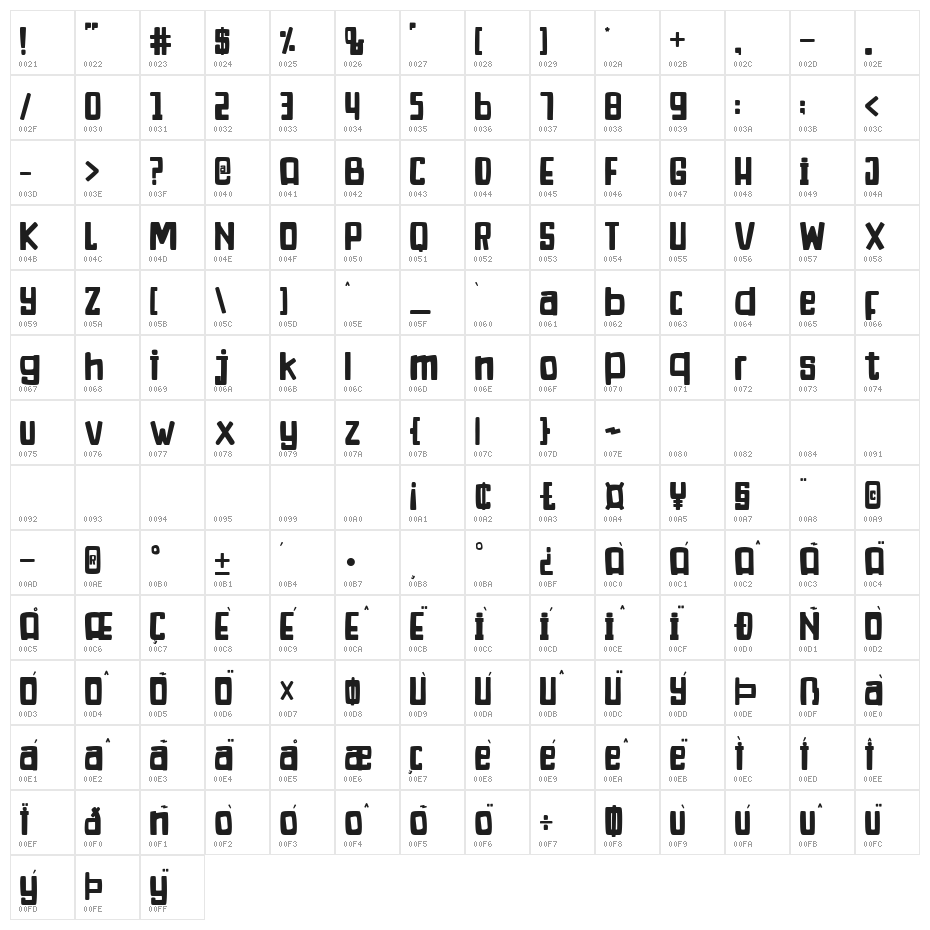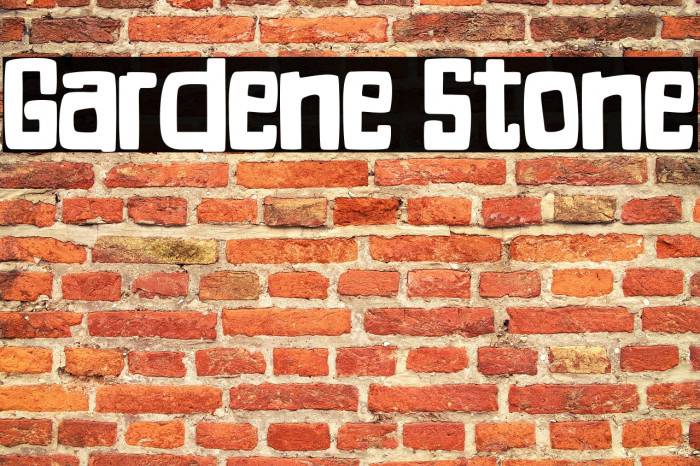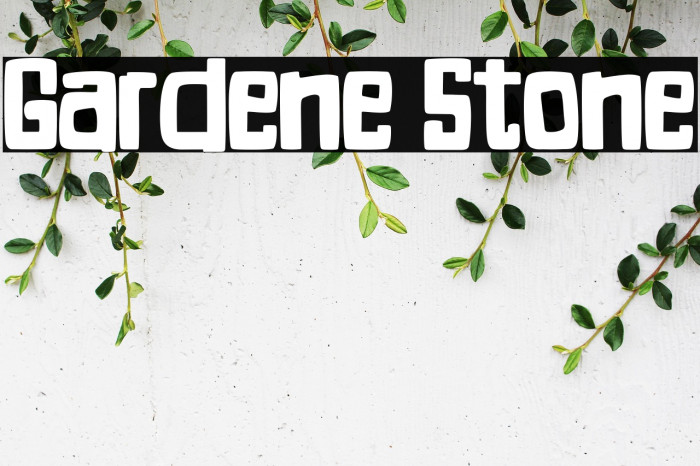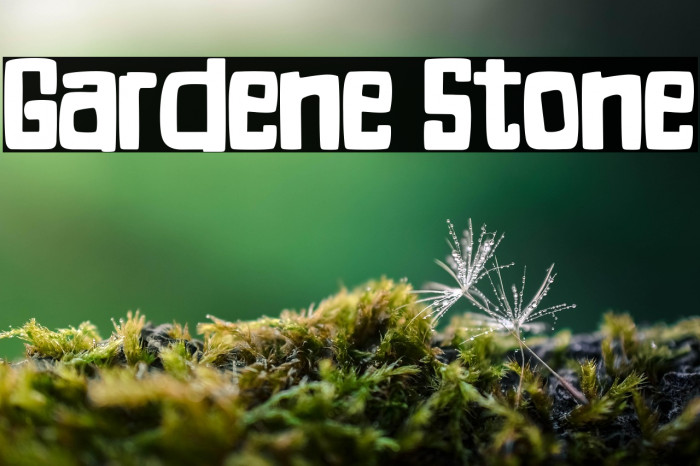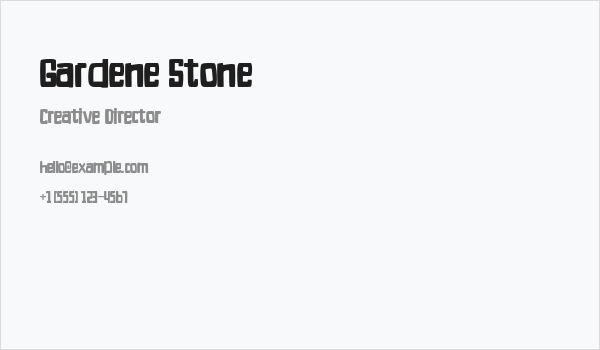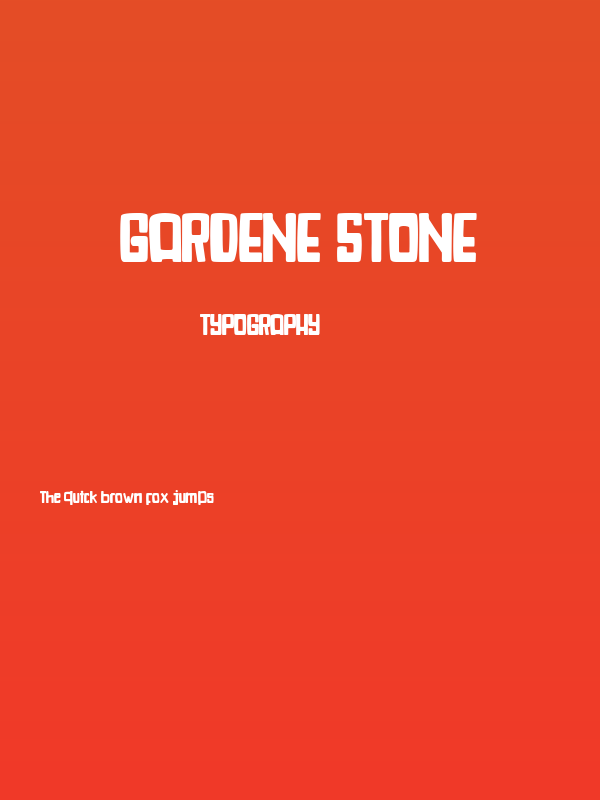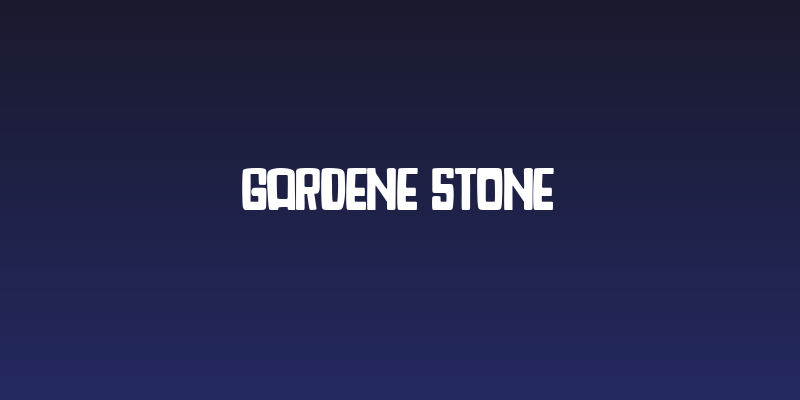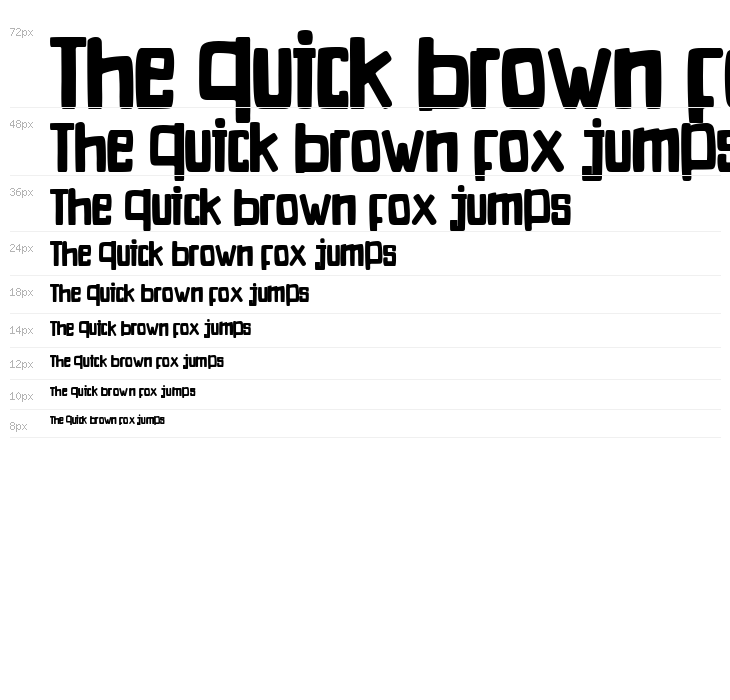
Gardene Stone Font
Gardene Stone Description
This font features a bold and playful design, characterized by its thick, rounded edges and slightly irregular shapes, giving it a hand-drawn appearance. The uppercase letters are uniform in height, while the lowercase letters maintain a consistent baseline with slight variations in width. The numbers are bold and easily readable, matching the style of the letters. Special characters are creatively integrated, maintaining the overall playful aesthetic. This font's unique style makes it suitable for projects that require a fun and informal touch.
| Overall Style | Playful, Hand-drawn |
| Proposed Projects | Ideal for children's books, playful branding, posters, and creative invitations. |